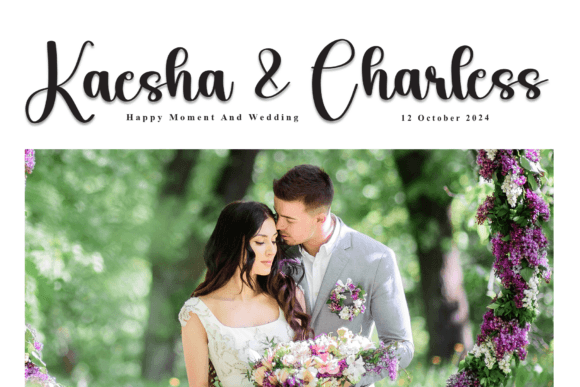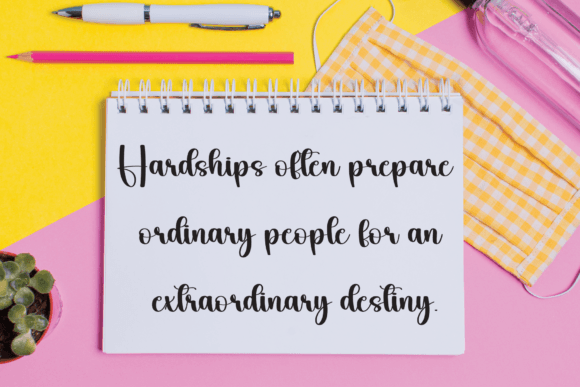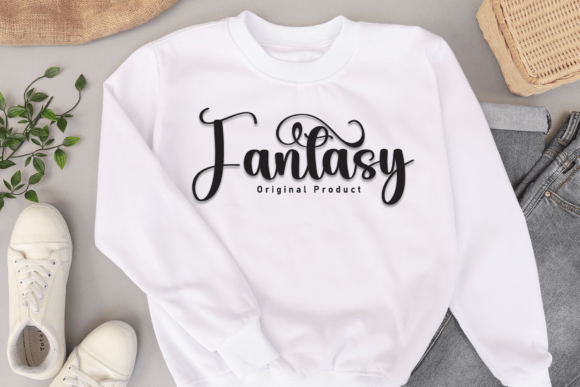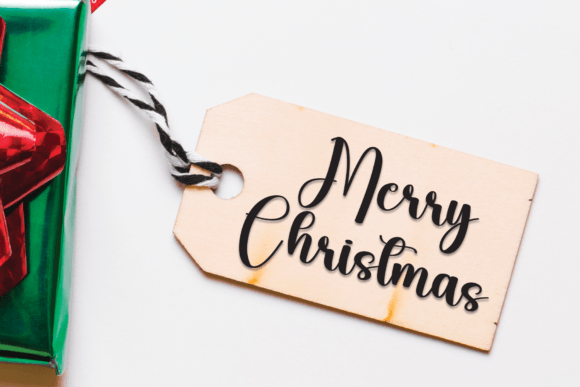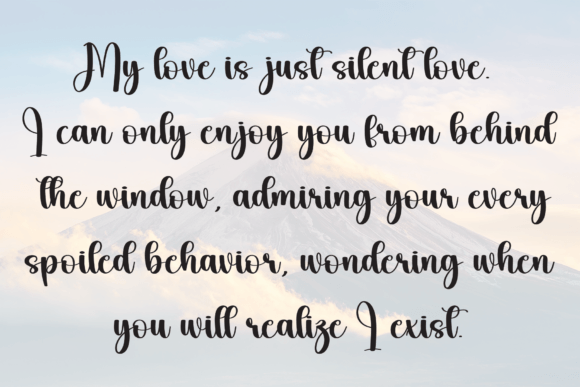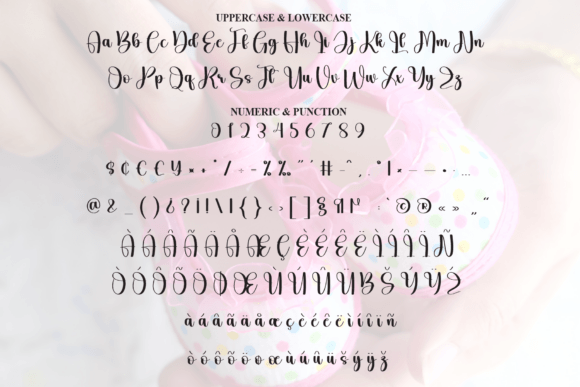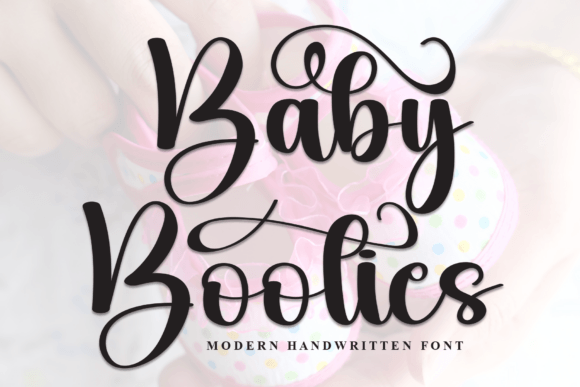
Baby Booties Font: The Perfect Addition to Your Baby-Themed Designs
Are you a designer or crafter looking for a font that captures the sweetness and innocence of baby-themed designs? Look no further than the Baby Booties Font! This playful and bold script font is designed to add a cute and cheerful touch to your cards, invitations, and more.
What is Baby Booties Font?
Baby Booties Font is a modern script font that features smooth, flowing letters that are perfect for creating beautiful and eye-catching designs. The font is designed to resemble handwritten text, with a playful and whimsical feel that’s perfect for baby-themed designs.
Key Features of Baby Booties Font
• Playful and Bold: Baby Booties Font is a bold and playful font that’s perfect for making a statement in your designs.
• Smooth and Flowing Letters: The font features smooth, flowing letters that are easy to read and look great on any device.
• Perfect for Baby-Themed Designs: The font is specifically designed for baby-themed designs, making it perfect for creating cards, invitations, and more.
• Cute and Cheerful: Baby Booties Font adds a cute and cheerful touch to any design, making it perfect for designers and crafters who want to create adorable and eye-catching designs.
How to Use Baby Booties Font in Your Designs
Baby Booties Font is easy to use in your designs, and can be used for a variety of projects, including:
• Baby Shower Invitations: Create adorable and eye-catching invitations for baby showers and other baby-themed events.
• Baby Cards: Design beautiful and heartfelt cards for new babies, baby showers, and other special occasions.
• Crafting Projects: Use Baby Booties Font to add a personal touch to your crafting projects, such as scrapbooking, DIY home decor, and more.
• Digital Designs: Use the font in your digital designs, such as social media graphics, blog posts, and more.
Why Choose Baby Booties Font?
There are many fonts to choose from, but Baby Booties Font stands out for several reasons:
• Unique and Playful: The font has a unique and playful feel that’s hard to find in other fonts.
• Easily Readable: The font is easy to read, even at small sizes, making it perfect for a variety of projects.
• High-Quality: The font is high-quality and professionally designed, ensuring that your designs look great and professional.
Tips for Using Baby Booties Font
Here are a few tips for using Baby Booties Font in your designs:
• Pair with Other Fonts: Pair Baby Booties Font with other fonts to create a unique and eye-catching design.
• Use for Headings: Use the font for headings and titles to add a bold and playful touch to your designs.
• Experiment with Colors: Experiment with different colors and textures to add depth and interest to your designs.
Baby Booties Font is a playful and bold script font that’s perfect for baby-themed designs. With its smooth, flowing letters and cute and cheerful feel, it’s the perfect addition to your cards, invitations, and more. Whether you’re a designer or crafter, Baby Booties Font is a great choice for any project. So why wait? Download Baby Booties Font today and start creating adorable and eye-catching designs!